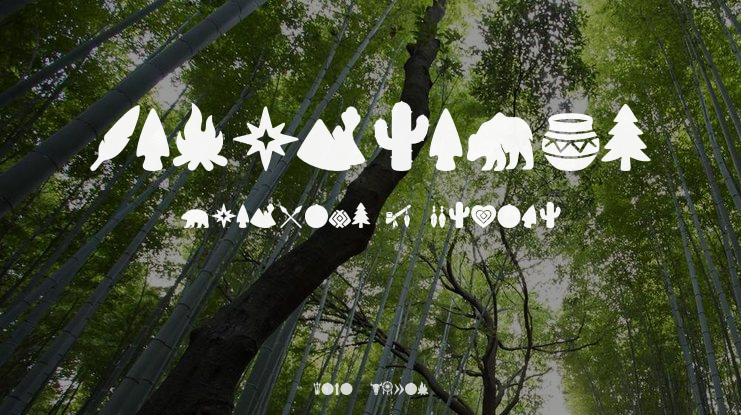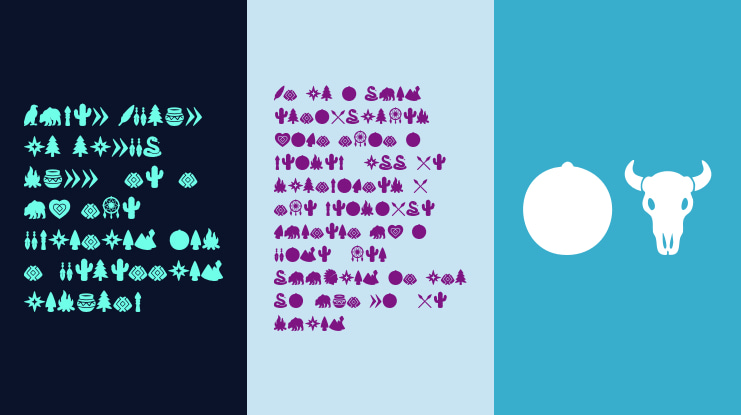
Indigenous Dingbats Font
Celebrate creativity and tradition with Indigenous Dingbats, a hand-drawn collection of 48 stunning symbols inspired by Indigenous art and patterns. Each glyph is thoughtfully crafted in a crisp, vector-style dingbat font, making it perfect for posters, invitations, branding, crafts, and more. Whether you’re adding subtle accents or building bold, decorative layouts — this font will make your work stand out with authenticity and charm.